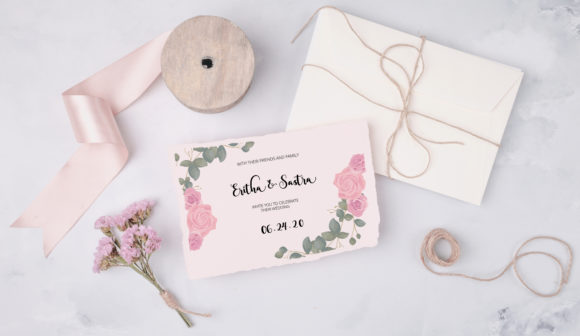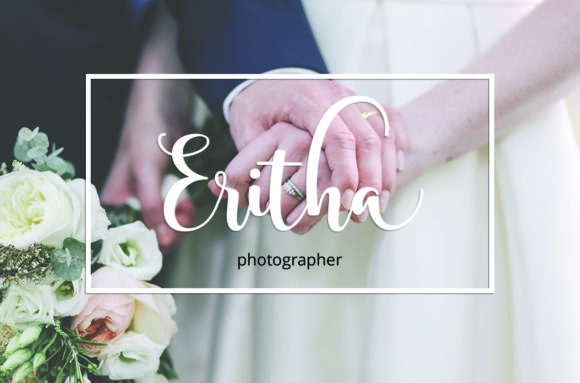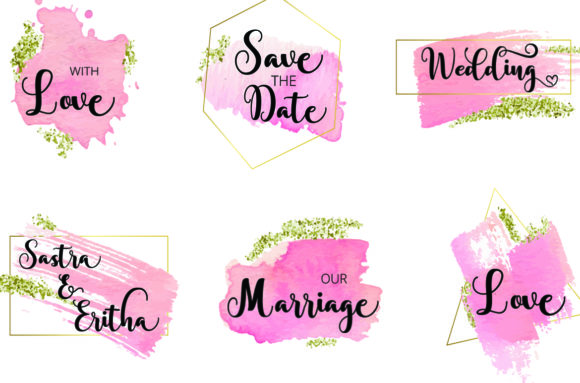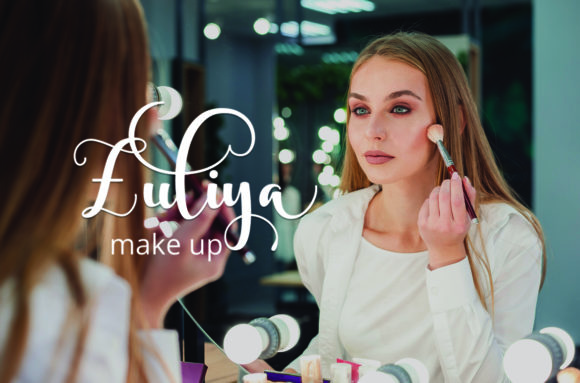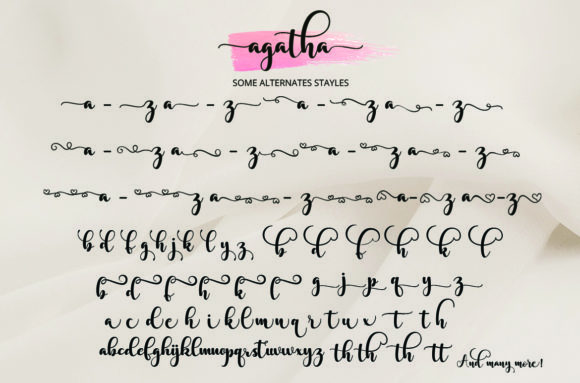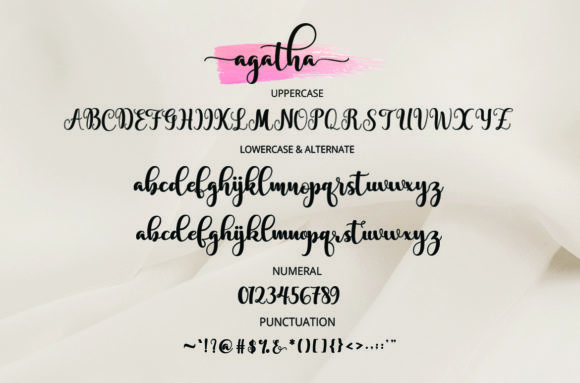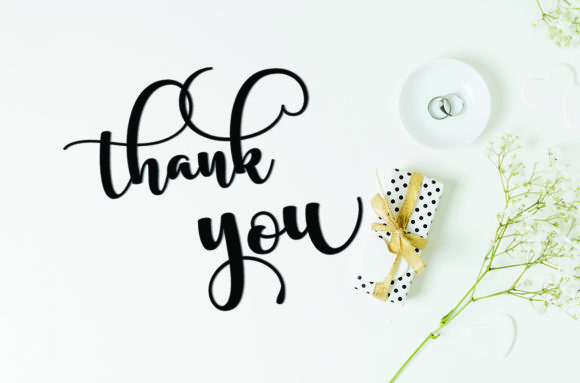
Agatha Font
About Agatha Font
Agatha is a timeless and elegant handwritten font. It is PUA encoded which means you can access all of the glyphs and swashes with ease! It features a varying baseline, smooth lines, gorgeous glyphs and stunning alternates. Fall in love with its incredibly versatile style and use it to create gorgeous wedding invitations, beautiful stationary art, eye-catching social media posts, and much more!